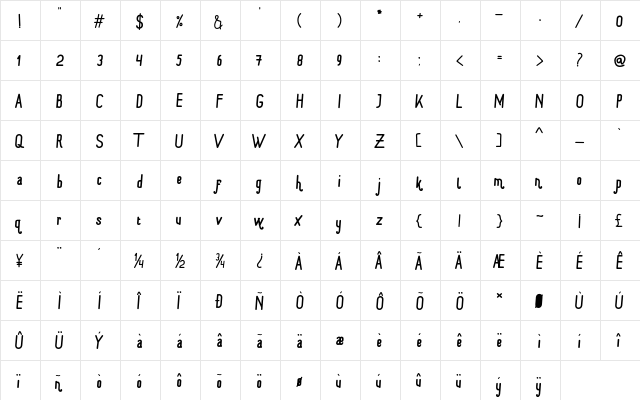
Moons Regular
| Foundry | belovestudio |
| Designer | abdul manan |
Design Context for Moons Typeface
Moons takes a measured approach to typography — its balanced proportions and neutral character make it a reliable workhorse for both digital and print work.